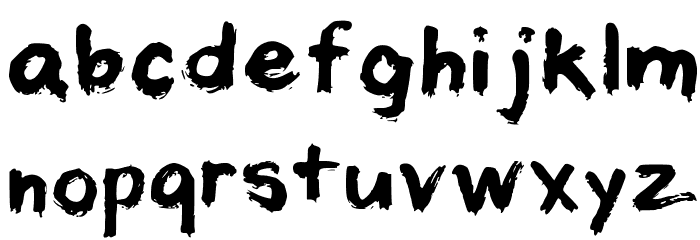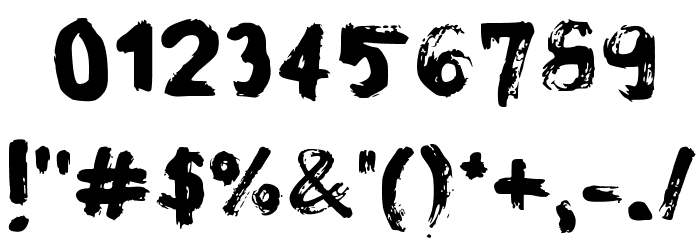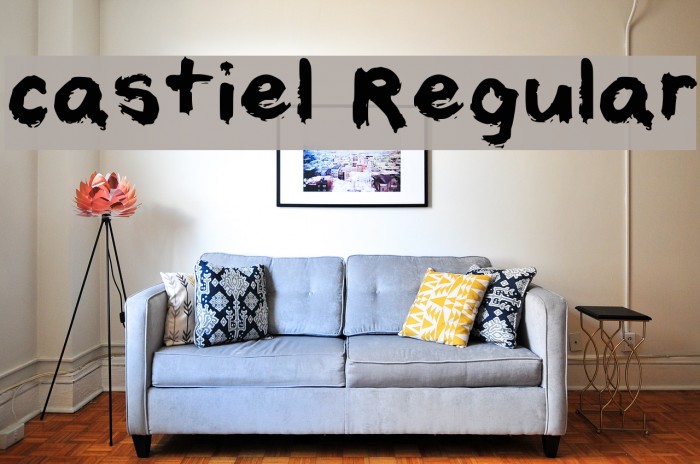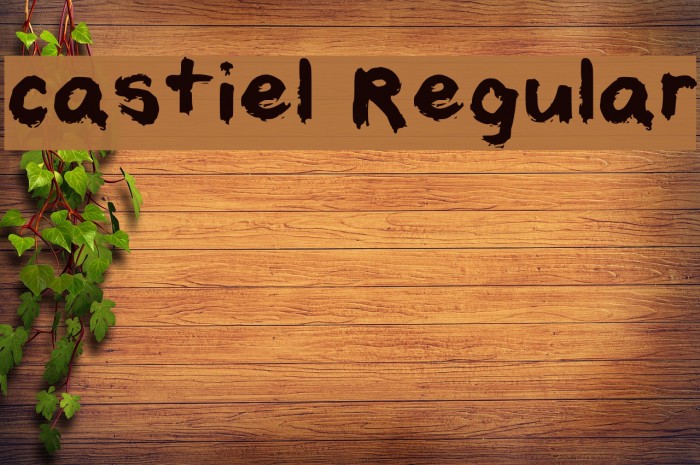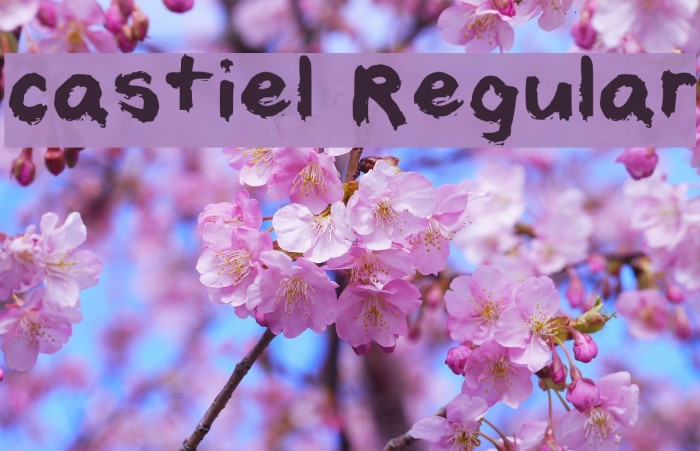
castiel Regular Font
This font features a bold, brushstroke style that exudes a sense of energy and dynamism. The characters are crafted with a rough, textured appearance, giving them a hand-painted look. Each letter has a unique, slightly irregular shape, adding to the font's organic and artistic feel. The uppercase and lowercase letters maintain a consistent style, while the numbers and special characters are equally expressive. This font is ideal for projects that require a bold and artistic touch, such as posters, album covers, or creative branding. Its distinctive style makes it stand out, ensuring that any text set in this font will capture attention.
A bold, brushstroke-style font with a textured, hand-painted look.
- Proposed Projects: Ideal for posters, album covers, creative branding, and artistic projects.
- Overall Style: Artistic, Dynamic
- Use Case: Headlines, Logos, Artistic projects